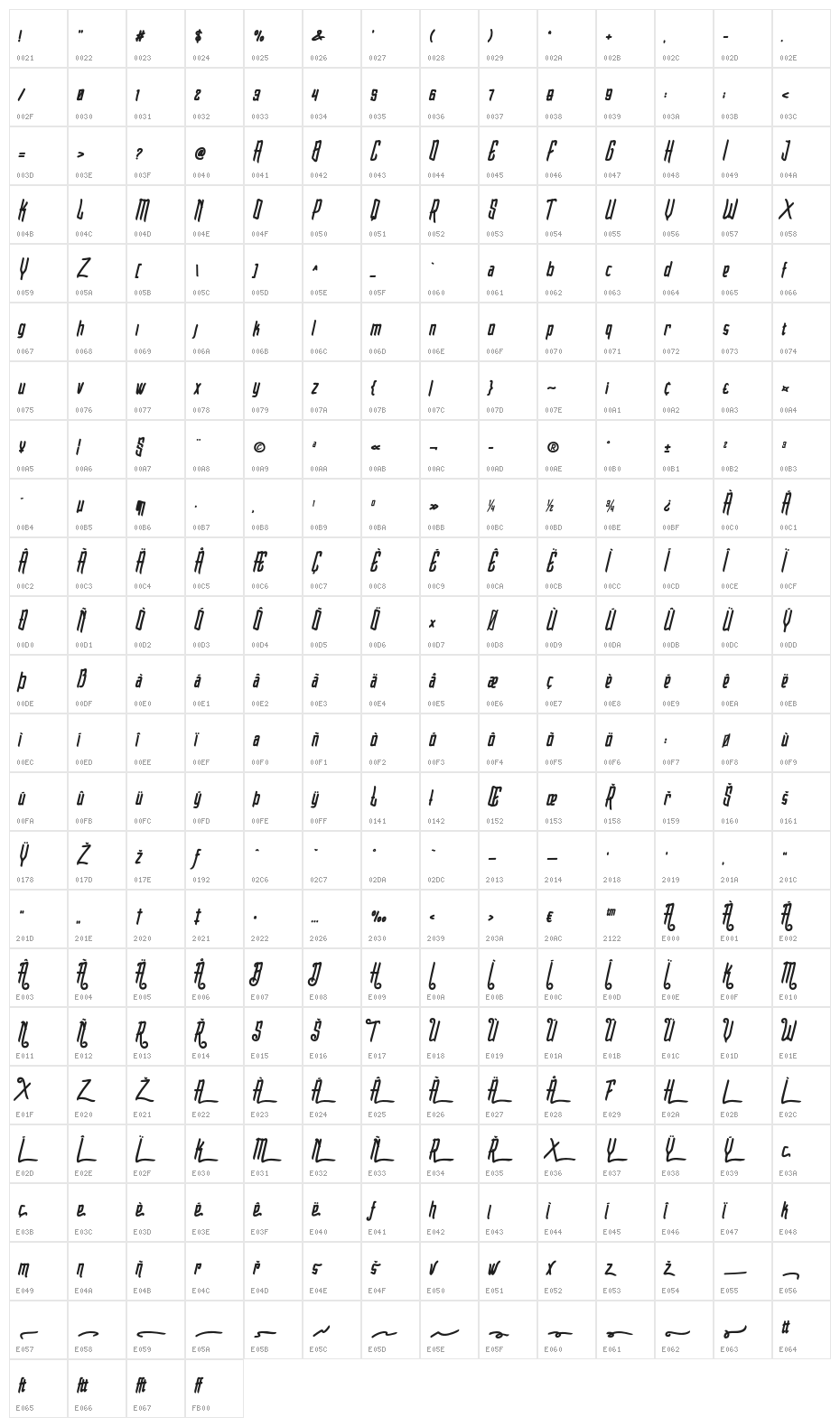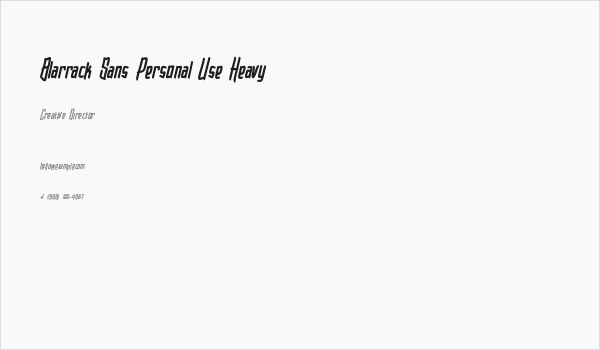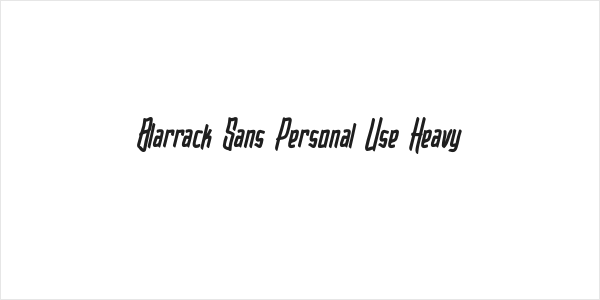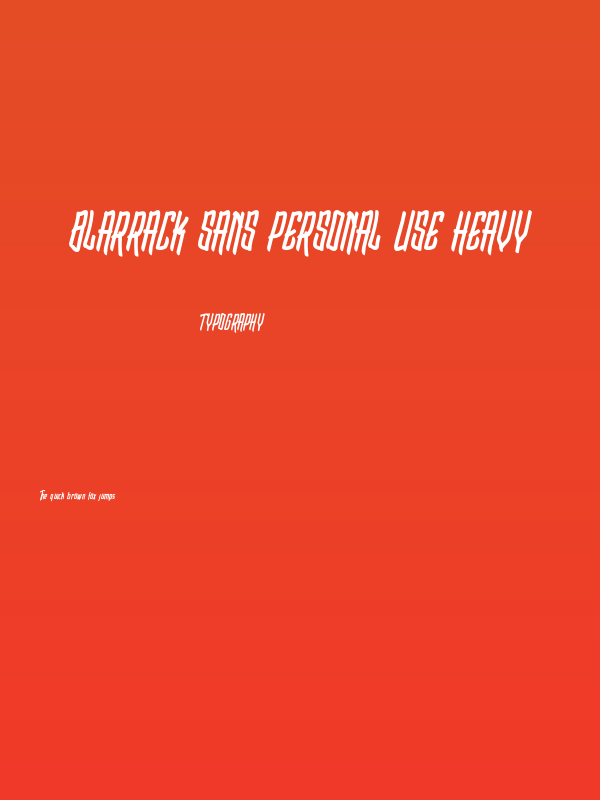
Blarrack Sans Personal Use Heavy Font
Blarrack Sans Personal Use Heavy Description
This font features a bold and dynamic style with a distinctive slant, giving it a sense of motion and energy. The characters are tightly spaced, enhancing its compact and impactful appearance. The strokes are thick and consistent, providing a strong visual presence. The uppercase letters are tall and narrow, while the lowercase letters maintain a similar width, creating a cohesive look. The numbers and special characters follow the same design principles, ensuring uniformity across all elements. This font's unique style makes it suitable for attention-grabbing designs.
| Proposed Projects | Ideal for sports branding, dynamic posters, and modern advertising campaigns. |